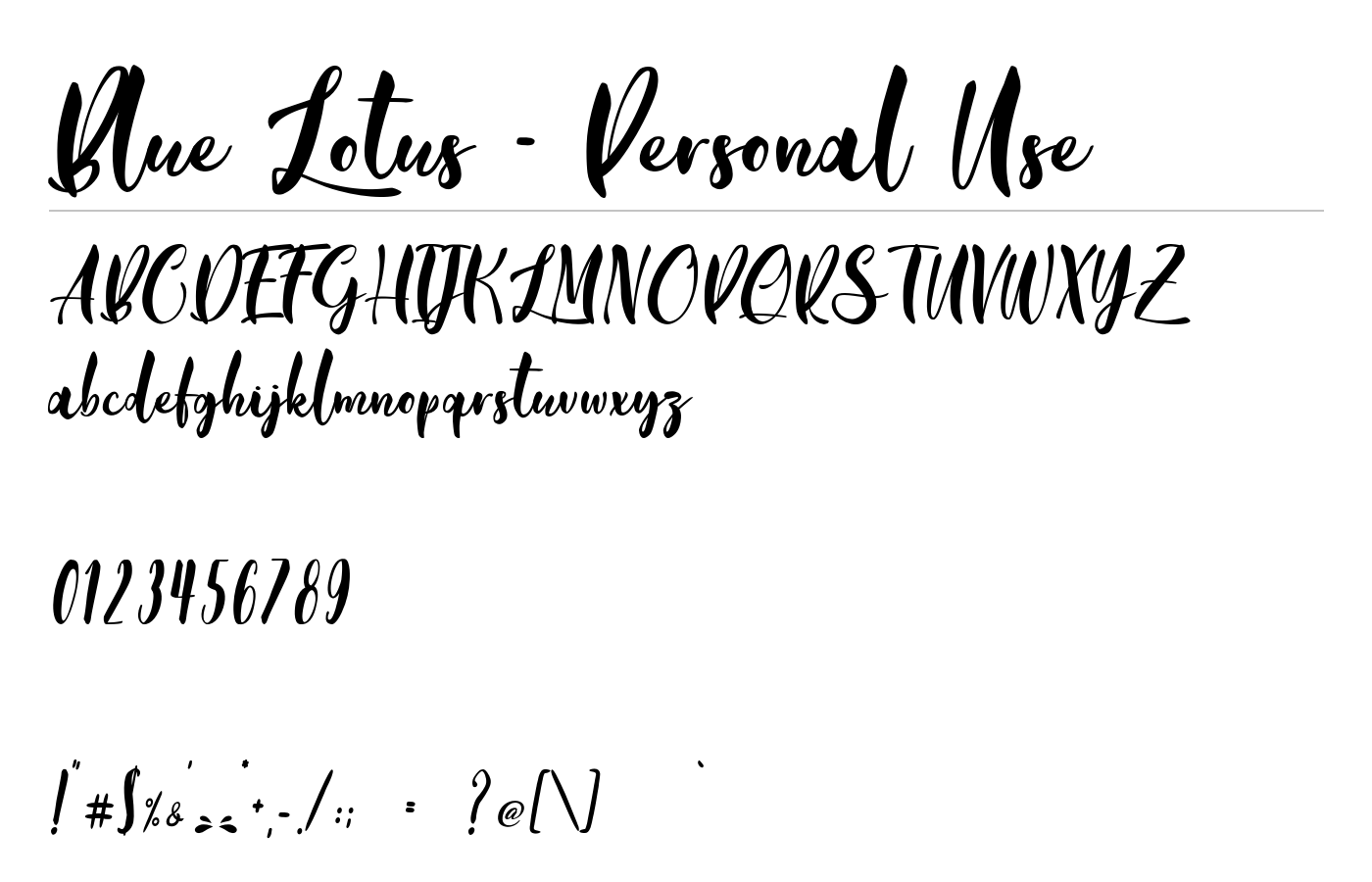
Blue Lotus is a lively script font with a smooth, hand-lettered style that combines elegant flow with playful energy. Its medium weight strokes and slightly condensed letterforms, paired with unique flourishes on characters like the uppercase "L" and "P," make it a perfect choice for creative branding, invitations, and stylish headlines. This font brings a personal, artistic touch to designs, working beautifully in fashion, lifestyle, and boutique projects.
Blue Lotus - Personal Use Font
About Blue Lotus - Personal Use Font